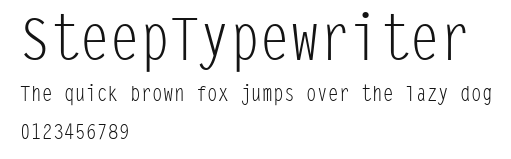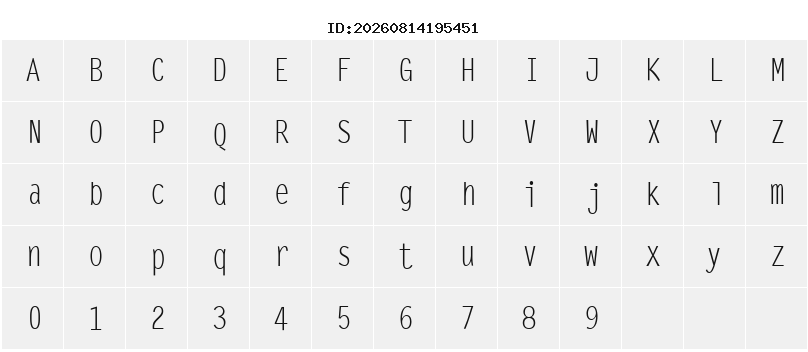
• Font Name: SteepTypewriter
About SteepTypewriter.ttf
SteepTypewriter.ttf is a modern, elegant sans-serif font designed for ultimate readability and visual harmony. Perfect for branding, headlines, web design, and print materials.